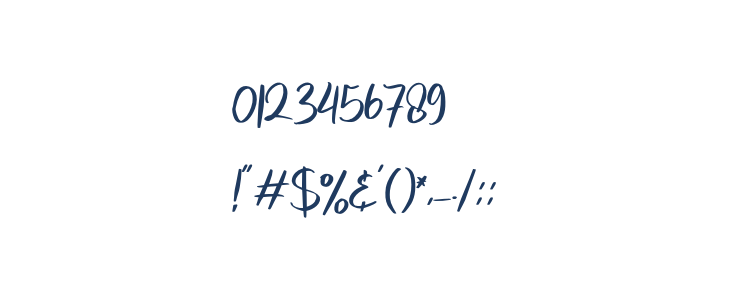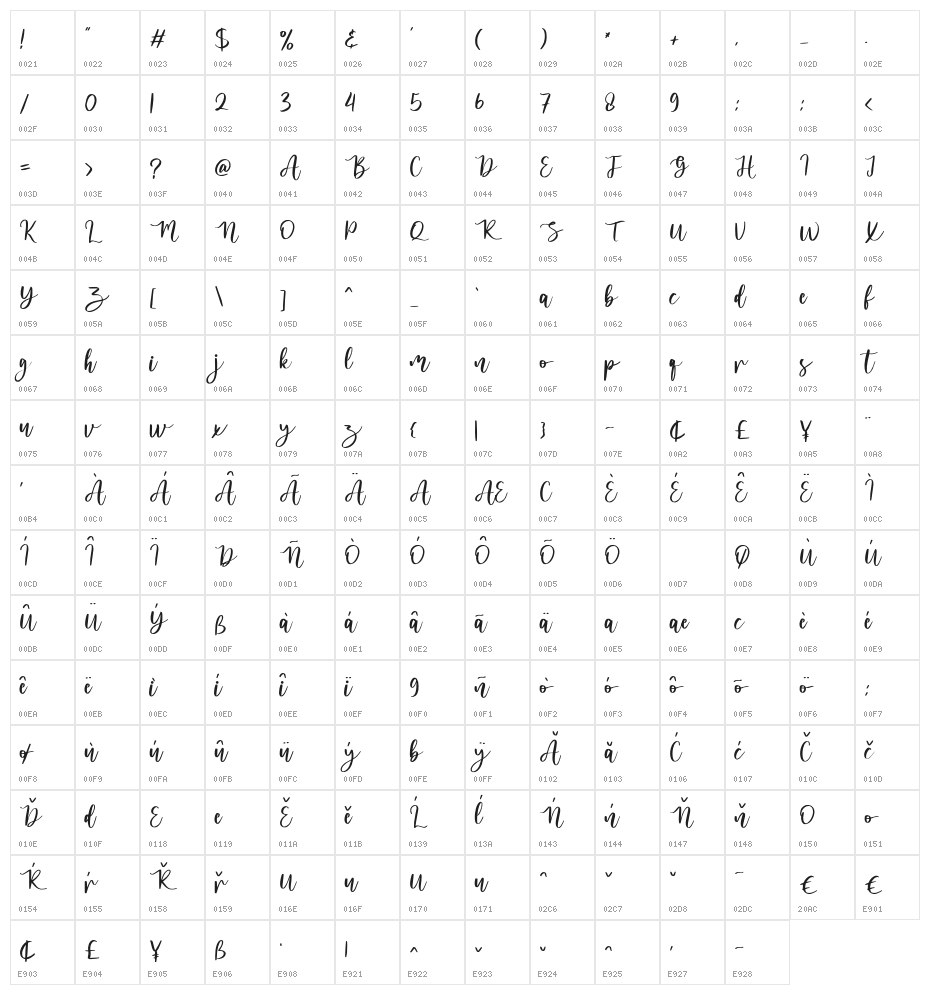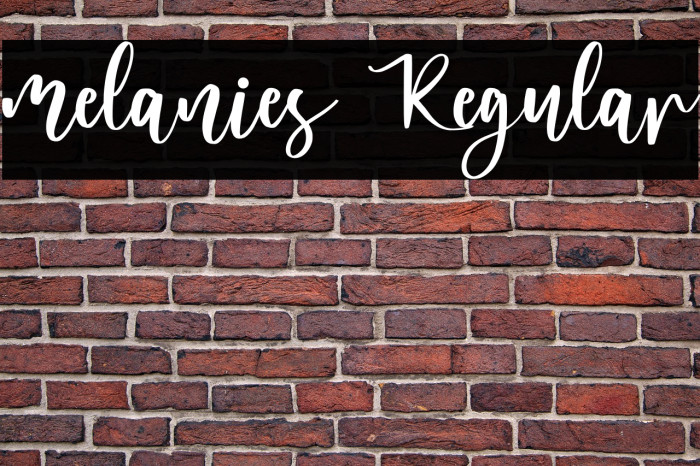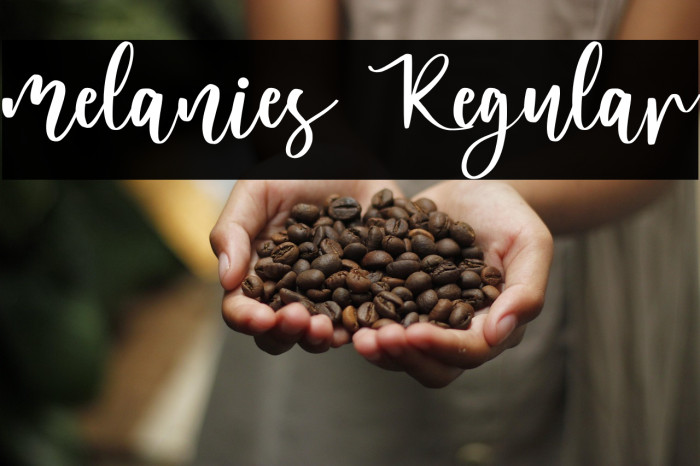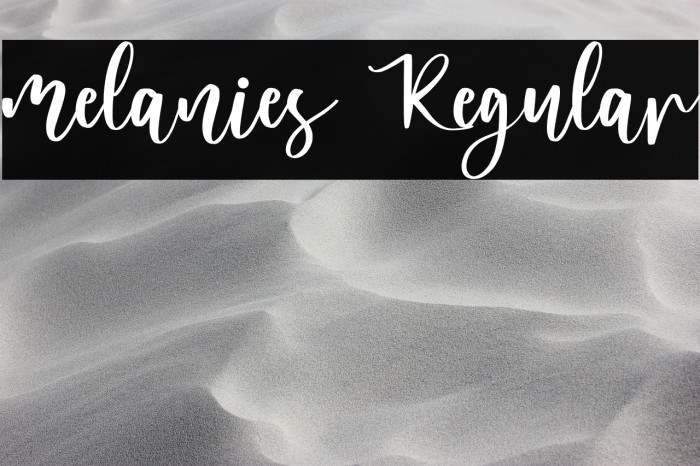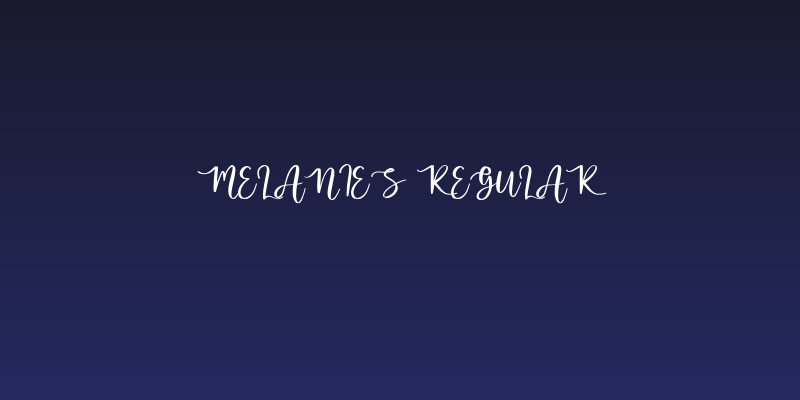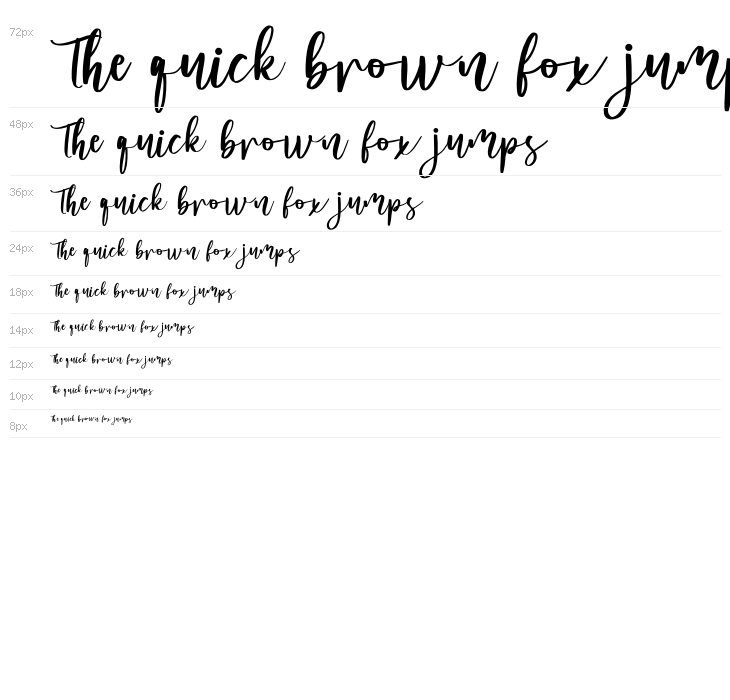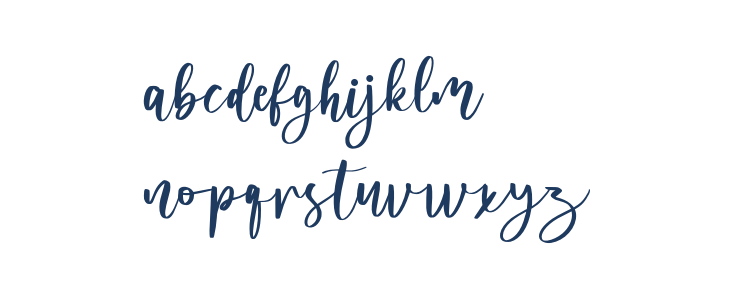
melanies Regular Font
melanies Regular Description
This font features a flowing, cursive style with elegant loops and swirls, reminiscent of traditional calligraphy. The characters are connected, creating a seamless and fluid appearance. The uppercase letters are slightly larger and more ornate, while the lowercase letters maintain a consistent and harmonious flow. The numerals and special characters are designed to match the overall aesthetic, with a playful yet sophisticated touch. This font exudes a sense of elegance and grace, making it suitable for projects that require a personal and artistic touch.
Use CaseLogos, Invitations, Decorative text
Proposed ProjectsIdeal for wedding invitations, greeting cards, branding, and elegant packaging.